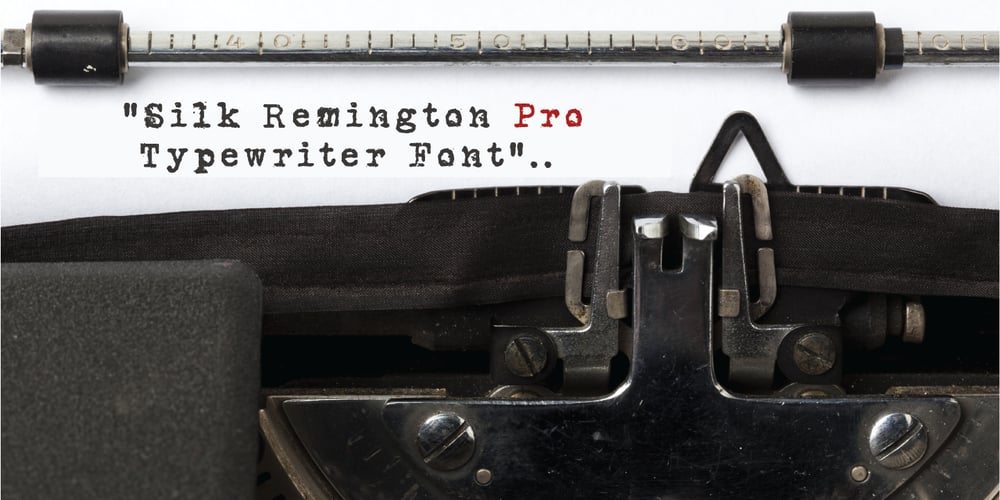
Silk Remington Pro Font Family was designed by mobaric minhas and published by Jadugar Design Studio. Silk Remington Pro contains 14 styles and family package options. Silk Remington Pro is the best Typewriter font with 14 variations, one of the most variations in typewriter fonts available in market. It’s designed to give a real typewriter feel.